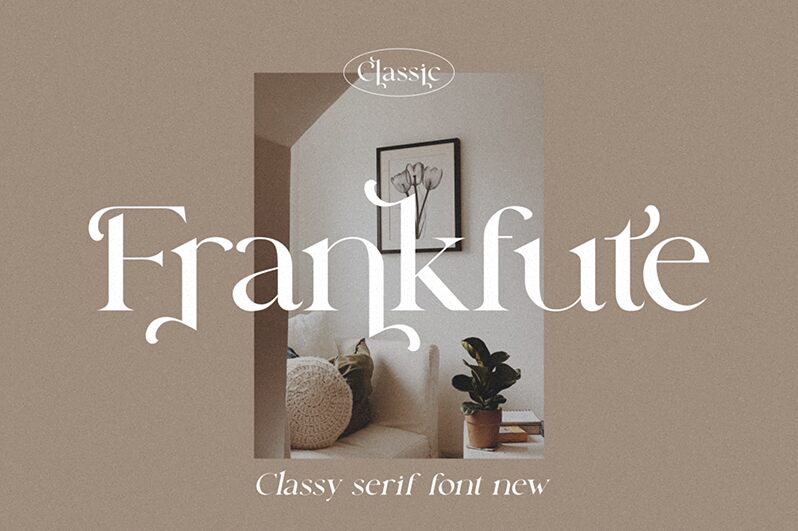
Frankfute
Frankfute font is a free serif font created by Typegoals Labs with an elegant and classic design. This formal, traditional, and sophisticated typeface offers gorgeous letter structures within each character, making it the best choice for all projects that focus on written or printed texts.
Use it in newspapers and magazines, books and novels in both the titles and body texts for optimal views. Frankfute can be also added to posters, tickets, cards designs like business cards or invitations.